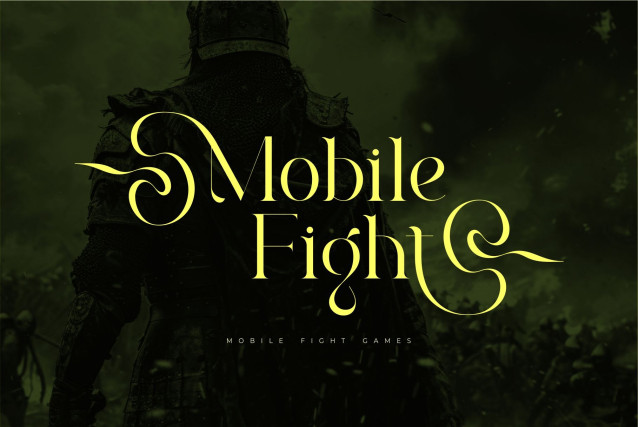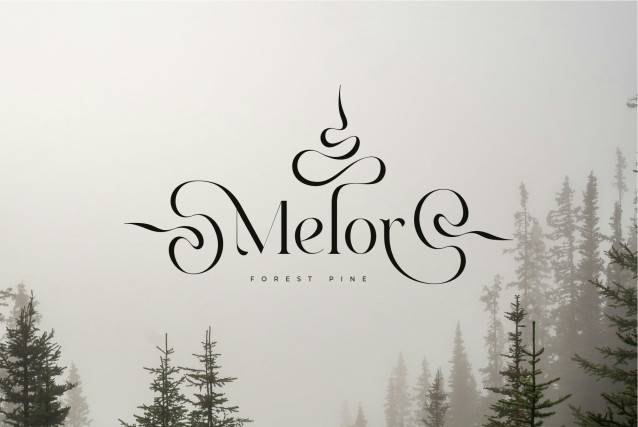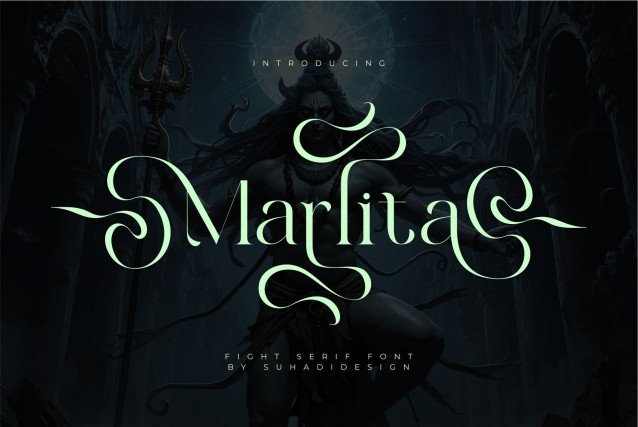
Marlita Font
Marlita Font is a serif font with a distinctive gaming or royal feel. With its stylish modern design, this font has become a favorite on the market. We’ve kept this font looking elegant, classy, ​​and stylish. Marlita is the perfect choice for movies, games, kingdoms, tourist attraction names, boutiques, magazines, designs, books, publications, branding, brand names, business cards, social media, branding, and other projects. Marlita is here to elevate the quality of your designs.